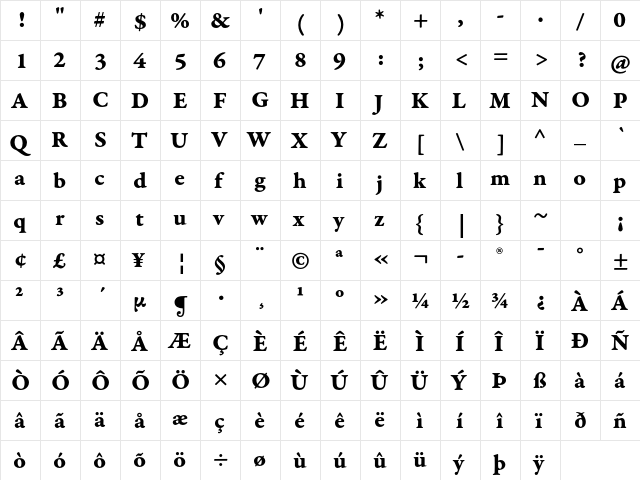
Garamond Premier Pro Bold Caption
| Designer | Robert Slimbach |
Design Context for Garamond Premier Pro Typeface
Garamond Premier Pro takes a measured approach to typography — its balanced proportions and neutral character make it a reliable workhorse for both digital and print work. The heavy weight commands attention and anchors typographic hierarchies.
Pro Tip: Use Garamond Premier Pro in both headline and body roles to test its range before committing to a single application.